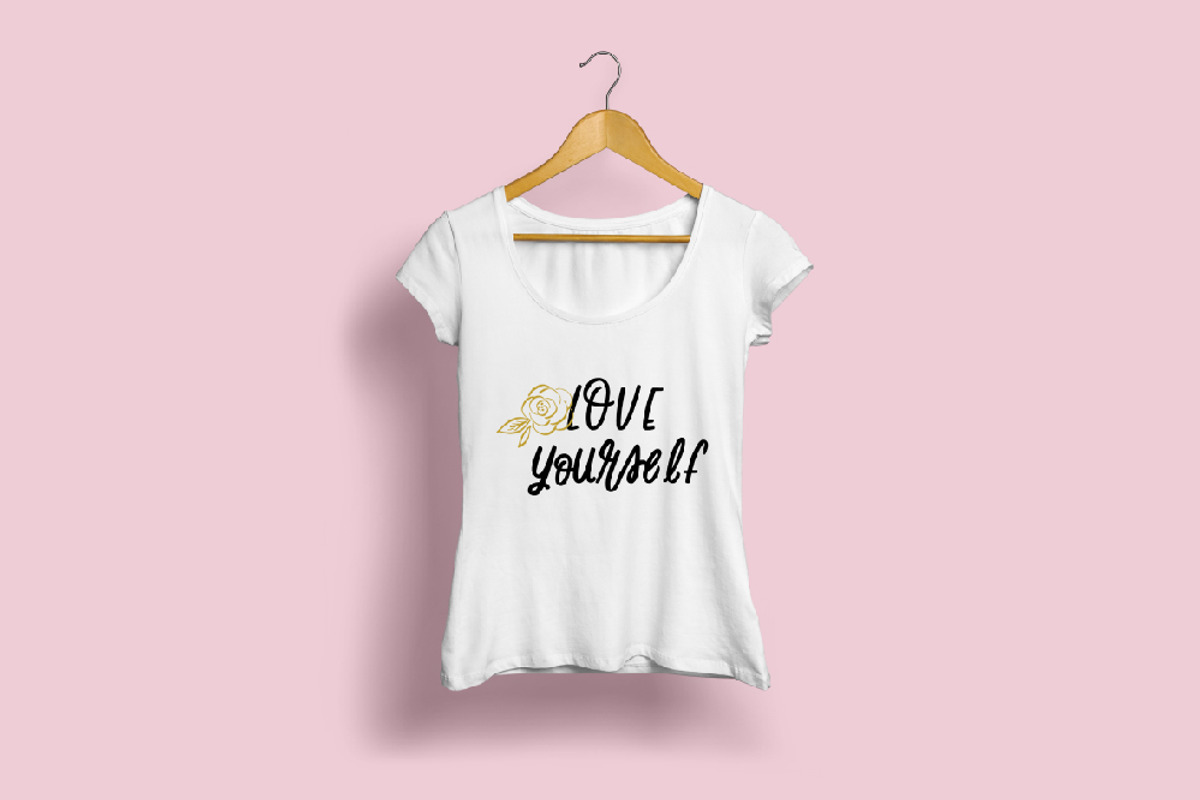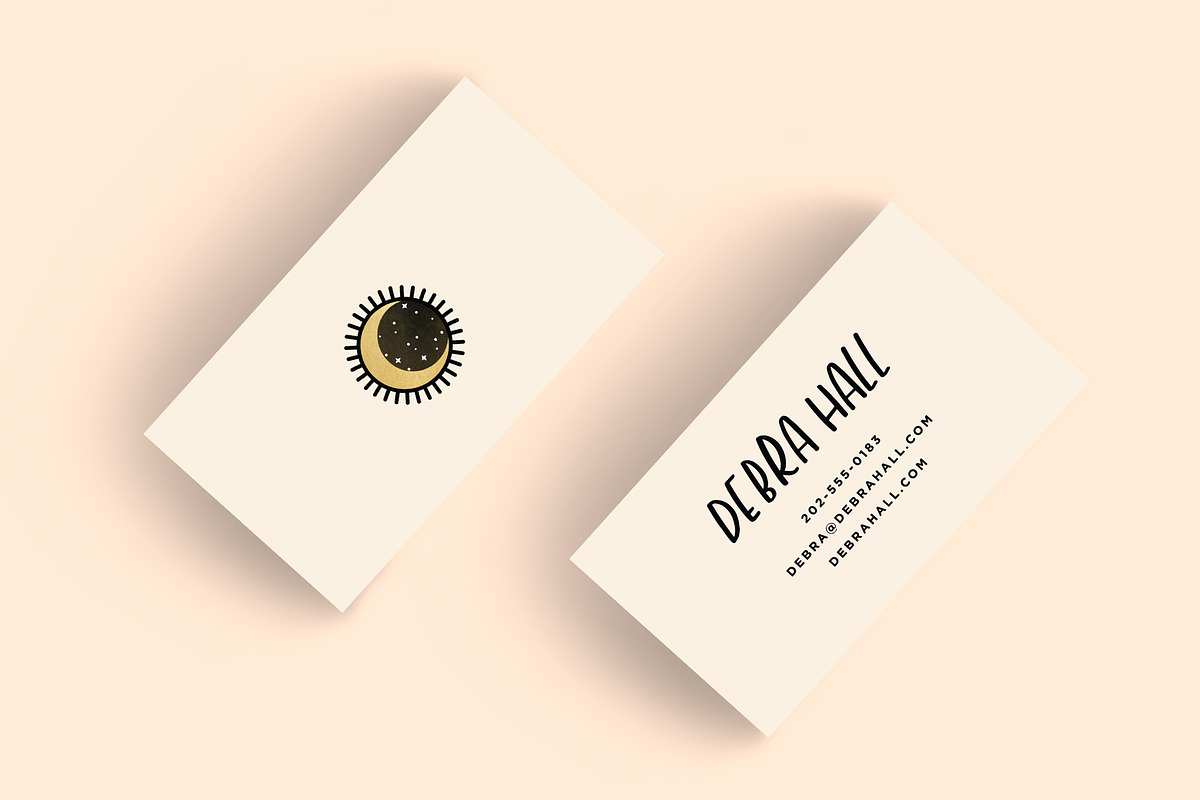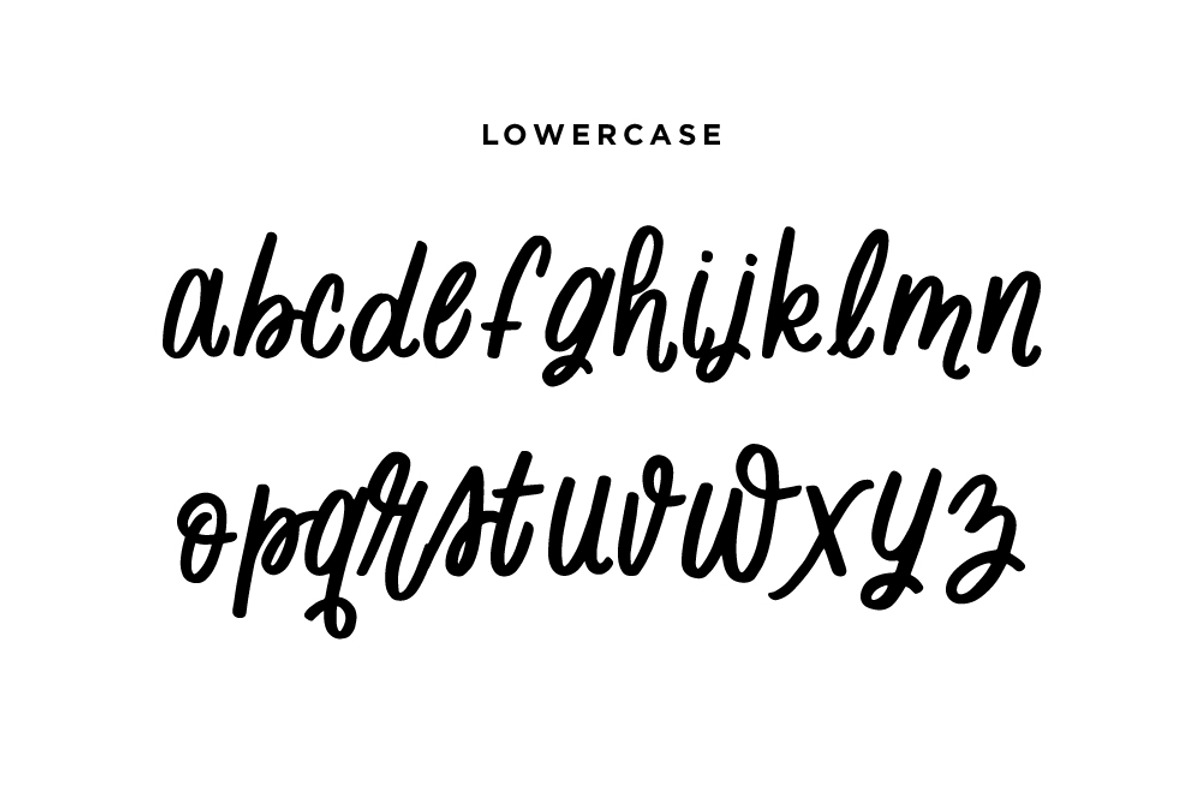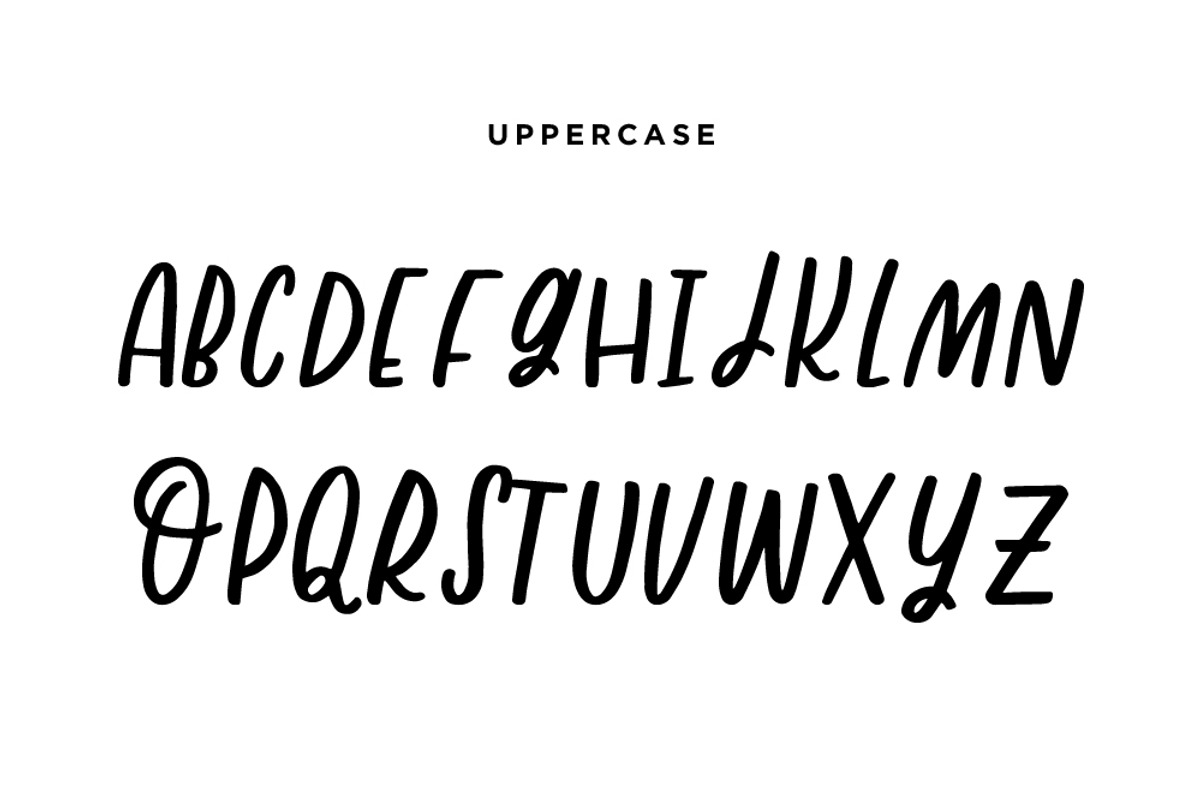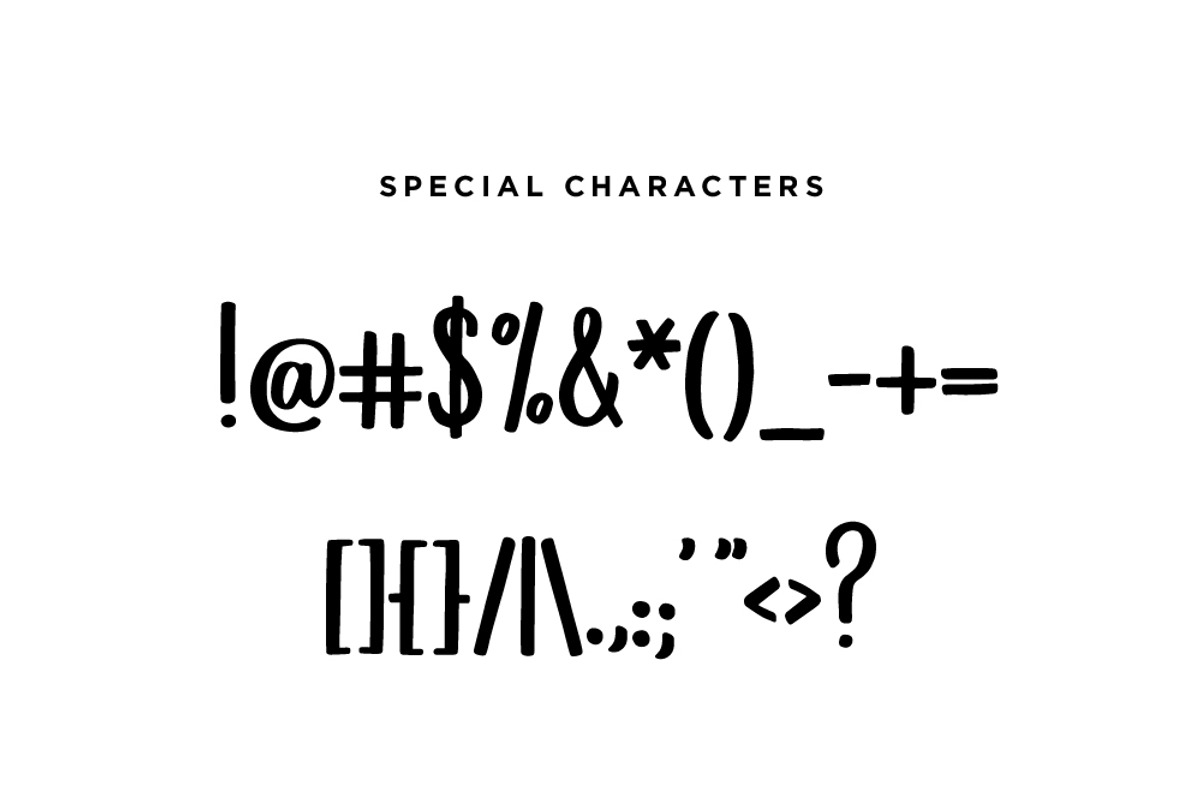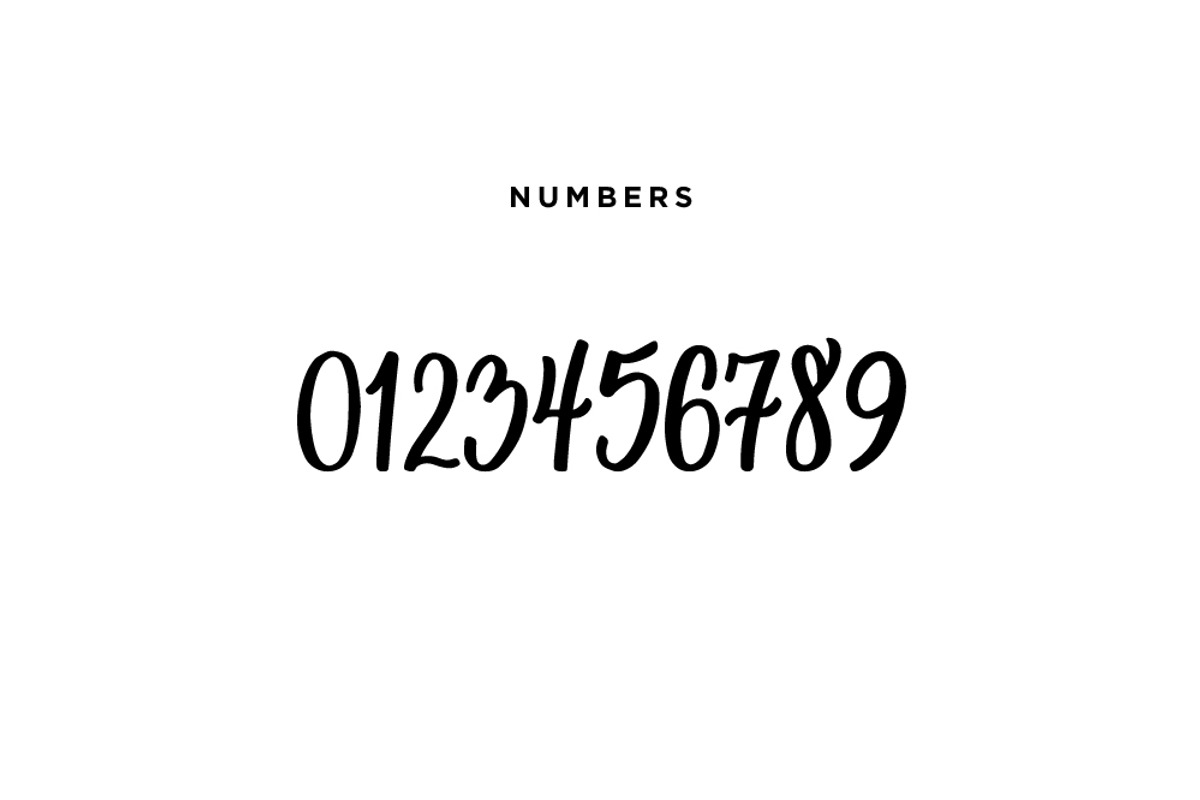
Wild Child - Fun Handwritten Font
'Wild Child' is a collaboration between Whimsy and Wild and The Routine Creative! This is a fun and playful hand-lettered font. It has a feminine hand-lettered feel and can be perfect for many uses from social graphics, greeting cards, t-shirts and even logos. Pairs well with bold sans serifs and condensed sans serifs.